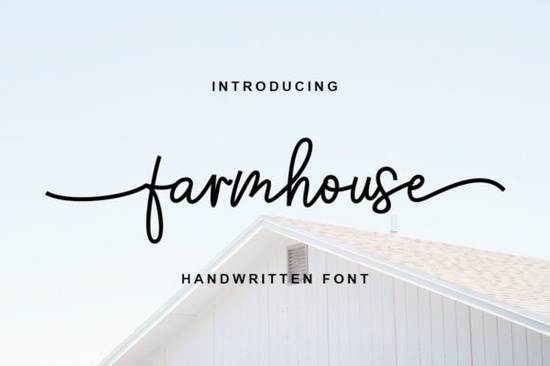
If you’re looking for a handwritten font that feels personal but still polished, Farmhouse Font might be exactly what your next project needs. It’s got that warm, romantic touch the kind that works just as well on a wedding invitation as it does on a rustic coffee shop logo. Whether you’re designing for print, social media, or branding, this font holds up beautifully in both headlines and body text without losing its charm.
What makes Farmhouse stand out is how naturally it flows. The letterforms feel like they were drawn by hand not too perfect, not too messy which gives your designs an inviting, human quality. And because it’s PUA encoded, you don’t need to jump through hoops to access all the extra glyphs and swashes. Just open your design software, and everything’s right there, ready to use.
Who should consider using Farmhouse Font?
This font isn’t just for one type of creator. If you’re into:
- Designing greeting cards or invitations
- Running a small business with a cozy, handmade vibe
- Creating social media graphics that feel personal
- Making print-on-demand products like mugs, shirts, or tote bags
- Working on editorial layouts for magazines or blogs
…then Farmhouse will likely slot right into your toolkit. It’s versatile enough to pair with clean sans-serifs or other script fonts like Montana or Shina Qatline when you want to mix styles without clashing.
How does it compare to other handwritten scripts?
Not all script fonts are created equal. Some lean too formal, others too casual. Farmhouse finds a sweet spot it’s elegant but approachable. For example, if you’ve used Mama before and loved its soft curves, you’ll appreciate how Farmhouse offers a similar warmth but with slightly more structure. Or if you usually reach for something bright and breezy like Sunlight, Farmhouse gives you a grounded alternative that still keeps things light.
And unlike some decorative scripts that become hard to read at smaller sizes, Farmhouse stays legible. That’s huge if you’re using it for longer captions, product descriptions, or packaging labels. You won’t have to switch fonts halfway through a project just to keep things readable.
A note about pairing and styling
Because Farmhouse has character without being overwhelming, it pairs well with minimalist fonts or even bold serifs. Try setting your main headline in Farmhouse and subheads in a clean sans-serif the contrast helps guide the eye without competing for attention.
You can also play with its built-in swashes to add subtle flair. A single extended tail on a capital letter can make a logo feel custom without going overboard. No need to force every glyph sometimes less really is more.
Where can I see it in action?
If you’re curious how others are using it, check out real examples from designers who’ve applied Farmhouse Font across different projects. You’ll find everything from rustic wedding suites to modern boutique branding proof that this font adapts well depending on context and styling.
And if you’re exploring alternatives or complementary options, don’t overlook Whimza. It’s got a bouncier rhythm that contrasts nicely with Farmhouse’s steadier flow useful when you want to create visual hierarchy or seasonal variations in your designs.
Is it worth adding to my collection?
Quick checklist before you download:
- Check your software Make sure your design app supports OpenType features (most do).
- Test readability Drop a sample sentence in both title and paragraph size to see how it holds up.
- Think about pairings Have a neutral font ready to balance Farmhouse’s personality.
- Explore the glyphs panel Don’t skip the swashes and alternates they’re where the magic happens.
Start simple. Use it on one project maybe a quote graphic or a product label and see how it feels. Chances are, once you get comfortable with it, you’ll find yourself reaching for it again and again.